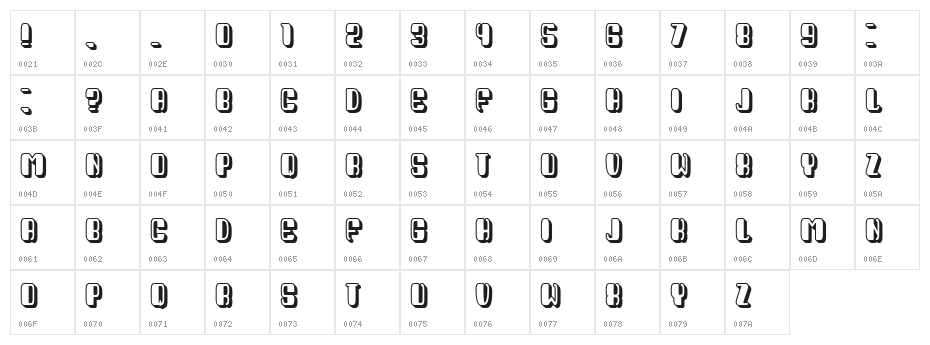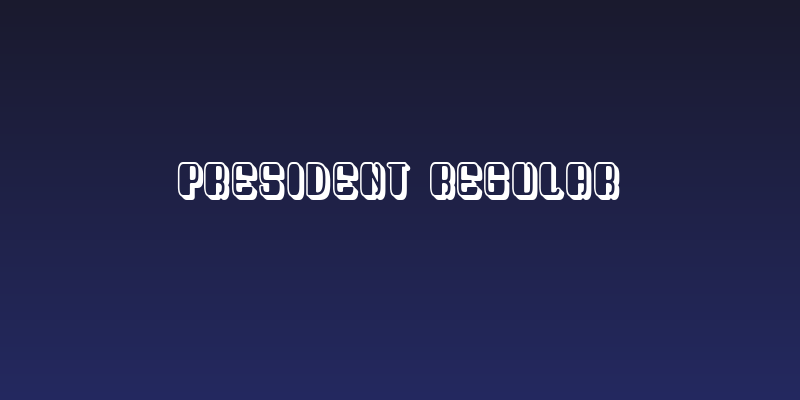
President Regular Font
President Regular Description
This font features a bold, three-dimensional appearance with a strong outline that gives each character a shadow effect. The letters are uppercase and have a geometric, block-like structure, making them highly legible and impactful. The style is reminiscent of vintage signage or retro posters, with a playful yet authoritative presence. The numbers and special characters maintain the same bold and outlined style, ensuring consistency across all glyphs. The font's unique design makes it stand out, suitable for projects that require a strong visual identity.
| Proposed Projects | Ideal for vintage-themed posters, signage, branding, and headlines that require a strong visual impact. |